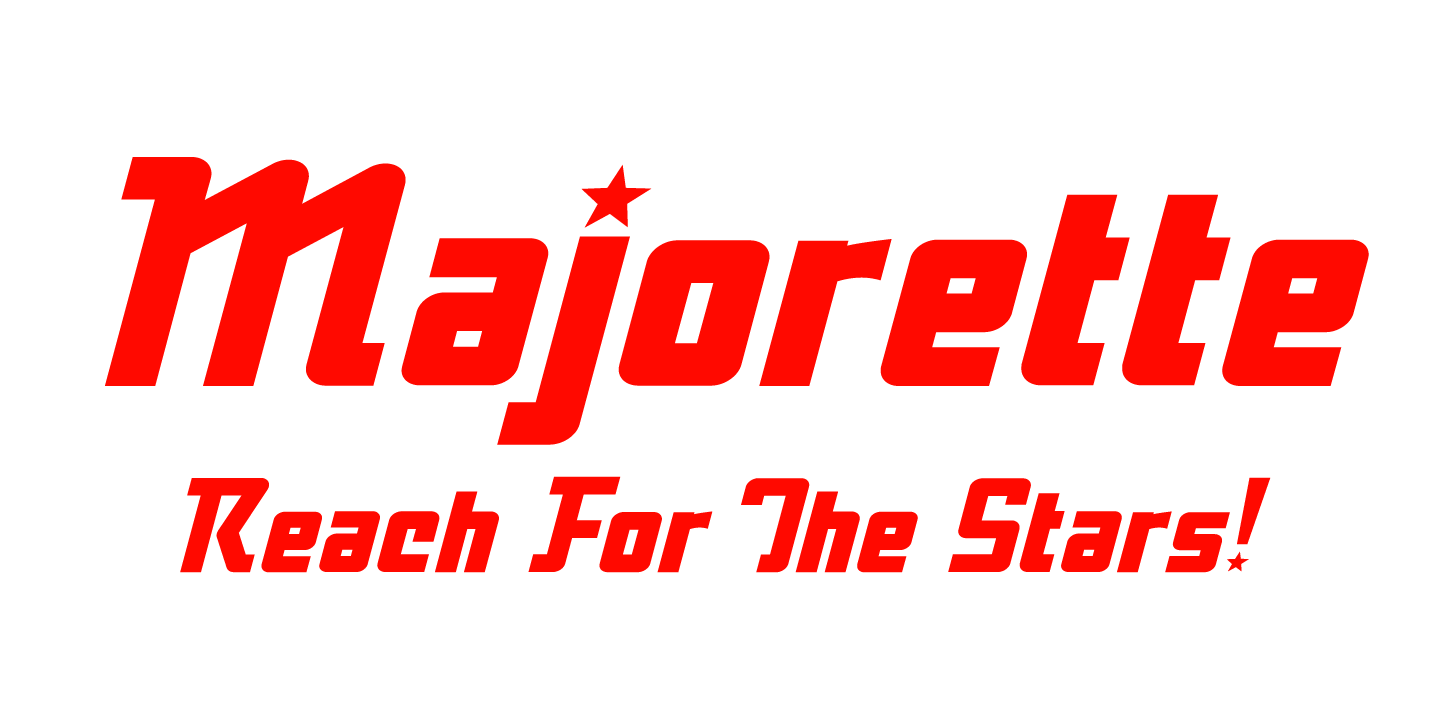
HomeFont BrosGroovy (1966-1978)Majorette Groovy (1966-1978)Sans SerifNew Wave (1980s) Majorette FacebookXPinterestWhatsApp 1 of 1 About Majorette A great new logo / headline font. Think 1976, school spirit, metalflake bicycles, custom t-top cars, metal mouth braces, orange popsicles and lemonade, and Marsha Brady hairstyles! Sign my yearbook?!  DOWNLOAD NOW People also explored Serival Sans Font Santa’s Hat Font Magnolia Font Qogee Font Taped Up Tight Font Simple Party Font Kamiley Font Black City Font DangeRNighT Font 234 0 TagsMajorette Font Previous articleDolce CaffèNext articleGeotica LEAVE A REPLY Cancel reply Comment: Please enter your comment! Name:* Please enter your name here Email:* You have entered an incorrect email address! Please enter your email address here Website: Save my name, email, and website in this browser for the next time I comment. Personal Use Free Time for Presents Personal Use Free Read more about this font Happy Santa Personal Use Free Read more about this font Open Store Personal Use Free Read more about this font Andolas Personal Use Free Read more about this font BLOG How to Cut Any Font on Cricut: Convert a Font to SVG (Free) Turn any font into a clean SVG so it cuts crisp on Cricut - a quick 3-step workflow using a free font-to-SVG tool. Exploring Font Trends Top 7 Google Fonts Alternatives for Faster and Privacy-Friendly Web Design (2025) Using Fonts in Digital Marketing: Tips to Strengthen Your Brand Identity